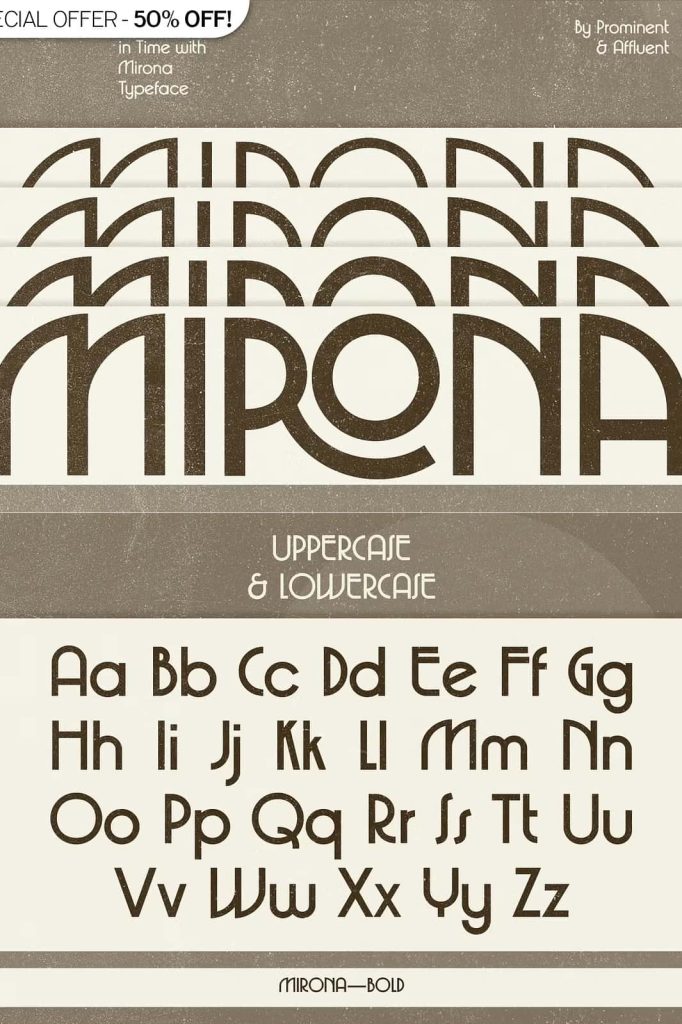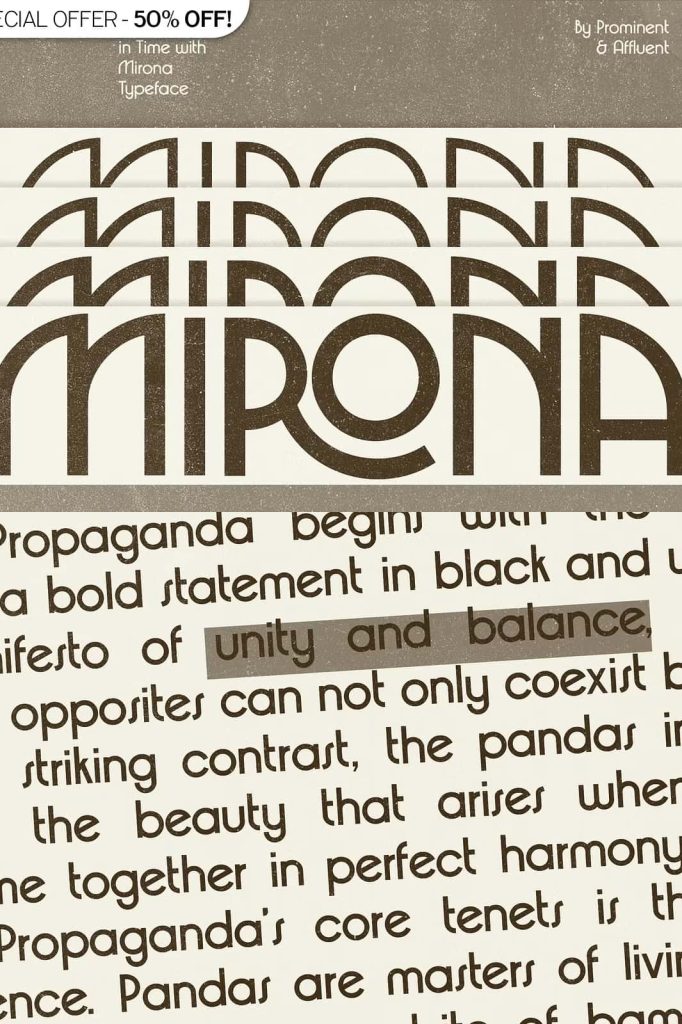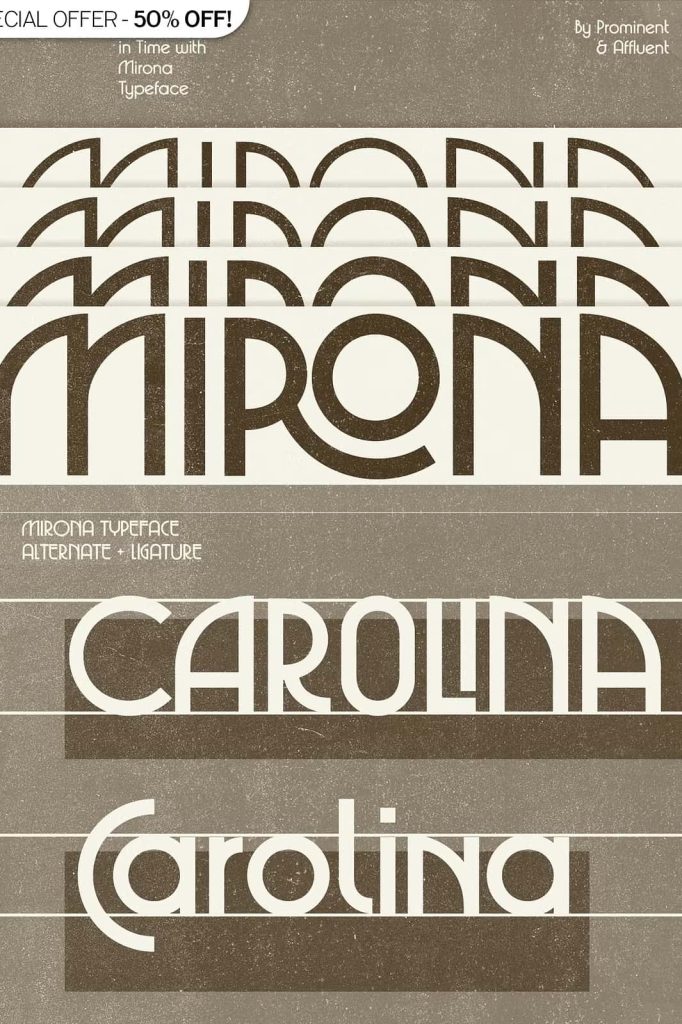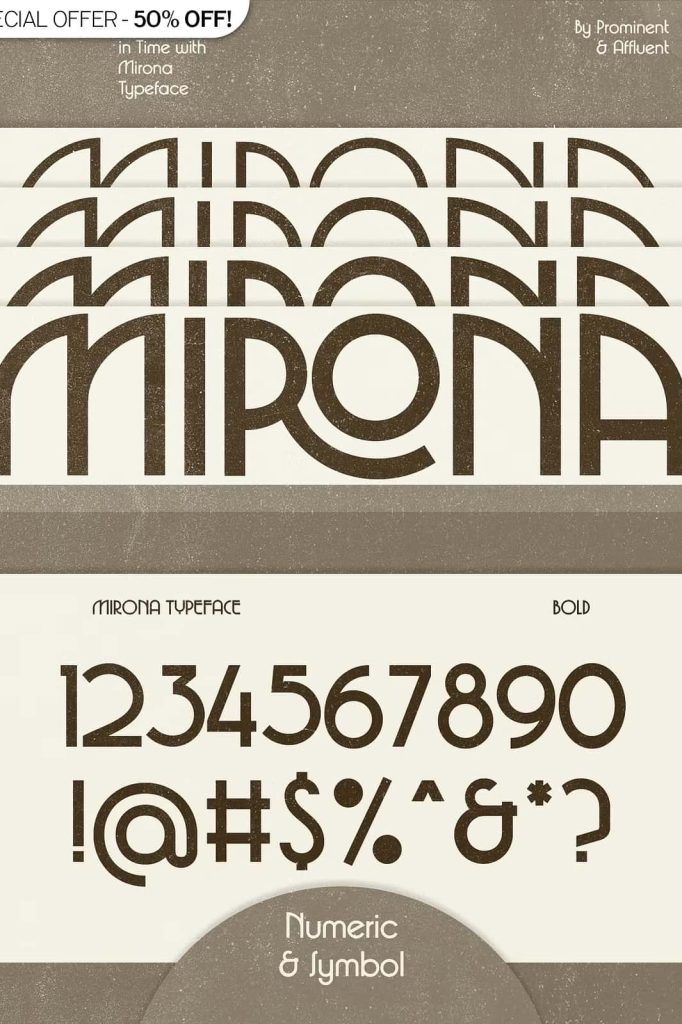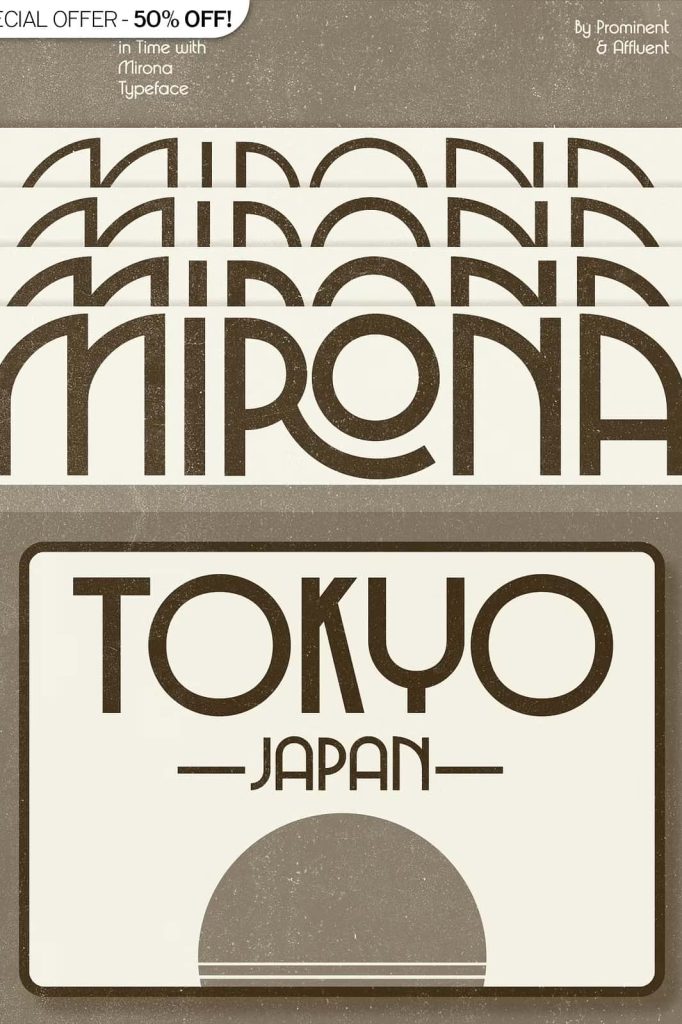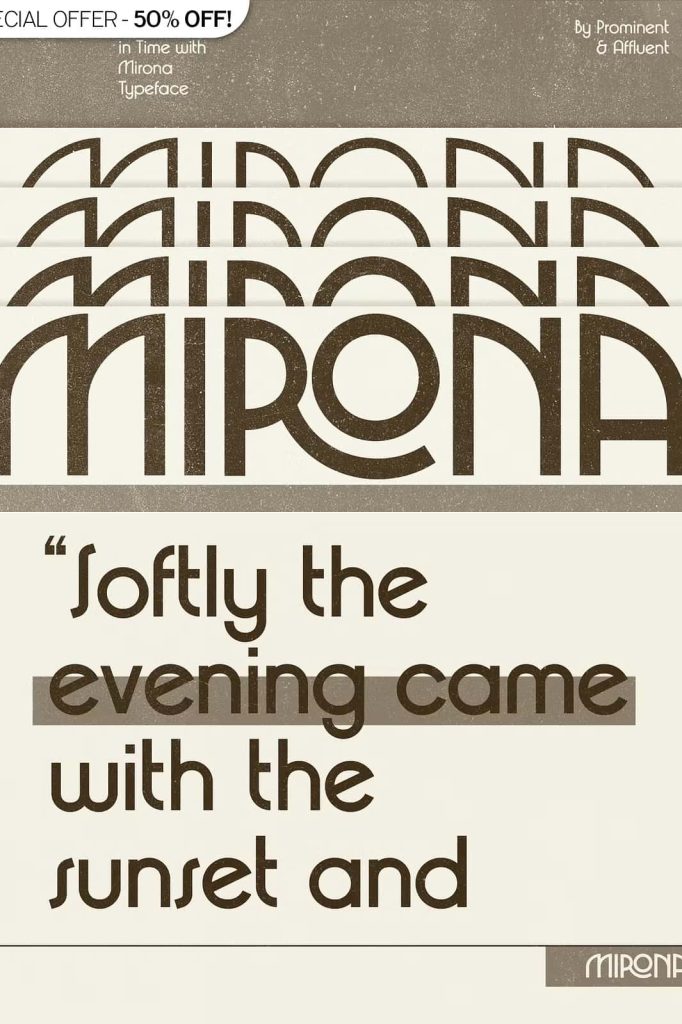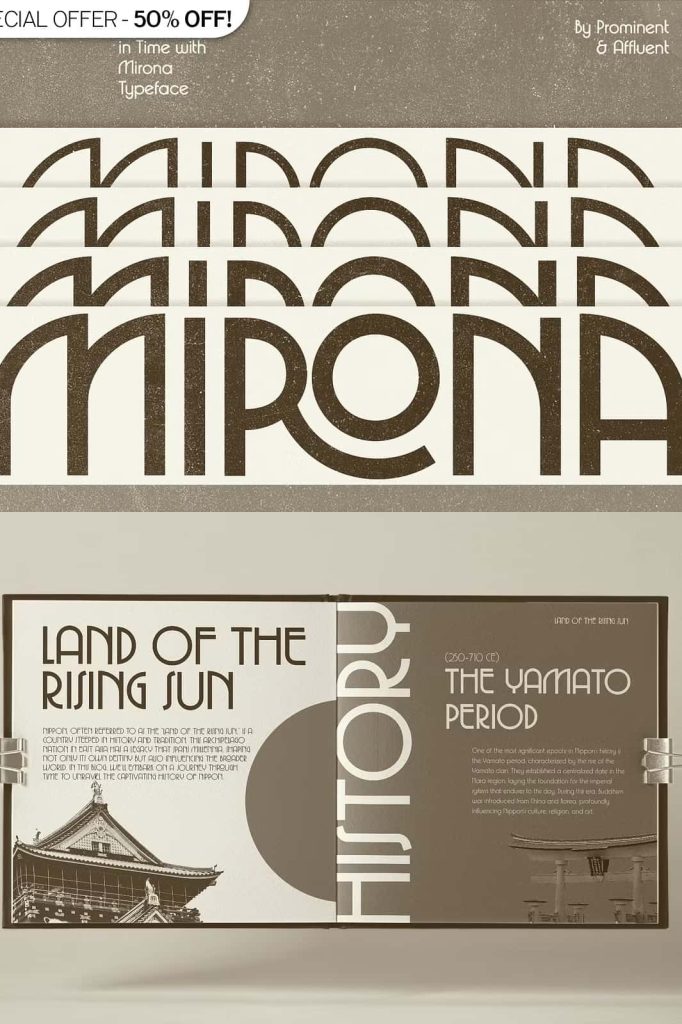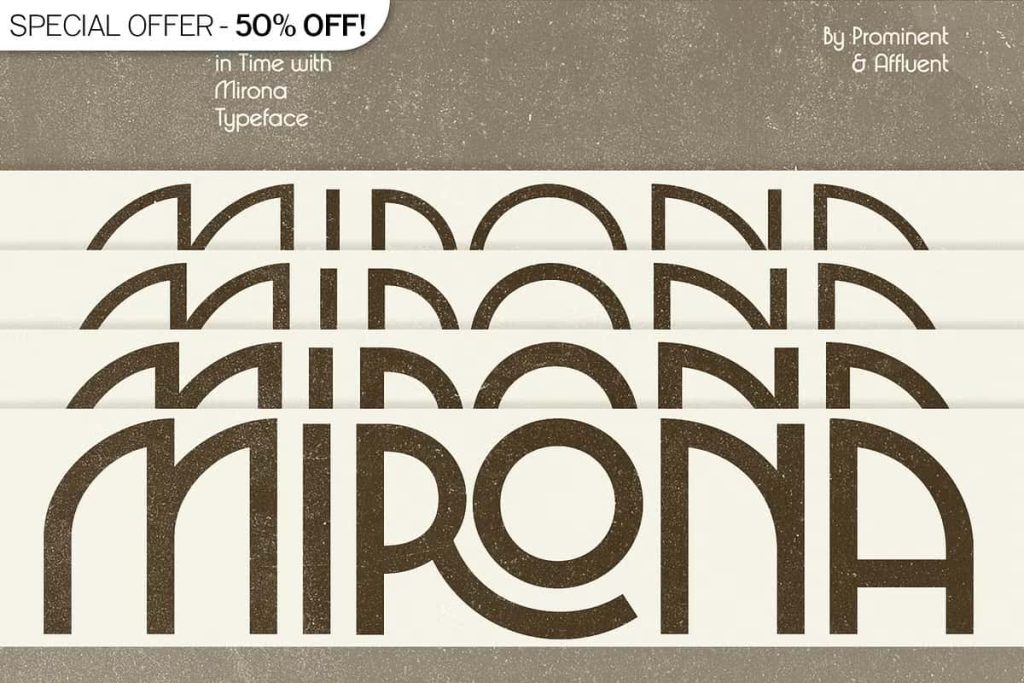
Mirona – Intro offer 50% off!leastedJuly 17, 2024Fonts Mirona Font effortlessly captures the essence of the 1970s, evoking a sense of nostalgia and vintage coolness. Download